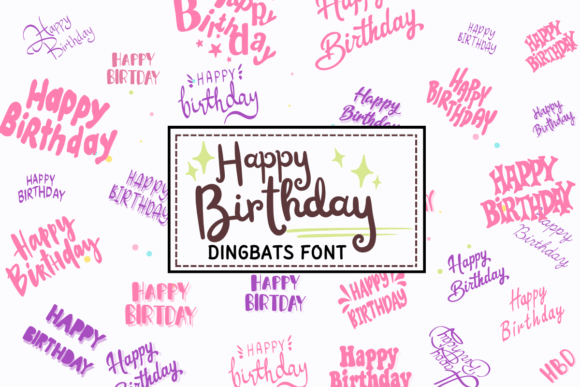
Unleash the Fun with Happy Birthday Font
Have you ever been in a creative rut, staring at a blank page or screen, wondering how to make your project truly special? We’ve all been there. But what if you had the perfect tool to bring a smile to your audience’s faces? Enter the Happy Birthday Font, a delightful dingbats font that’s sure to add a touch of whimsy to your designs.
This festive font is designed to celebrate life’s special moments, from weddings to birthday parties, and everything in between. With its playful and colorful characters, the Happy Birthday Font is the perfect addition to any creative project, from DIY crafts to logos and decorations. Whether you’re a seasoned designer or a crafty hobbyist, this font is sure to bring joy and inspiration to your work.
- Unique Characteristics: The font features custom-designed uppercase and lowercase letters, numbers, and special characters, with a playful and celebratory feel
- Color Options: The font includes color variations, allowing designers to choose from a range of colors to match their brand or design aesthetic
When I first stumbled upon the Happy Birthday Font, I was immediately drawn in by its playful and whimsical aesthetic ✨. The font’s cursive script and cheerful design make it perfect for birthday cards, party invitations, and other celebratory materials. The font’s versatility allows it to be used in a variety of contexts, from casual to formal.
The Happy Birthday Font also includes a range of special characters, such as balloons and candles, which add a fun touch to any design ✨. The font’s compatibility with various operating systems and devices makes it a convenient choice for designers.
Overall, the Happy Birthday Font is a delightful addition to any designer’s collection. Its playful design and versatility make it a great choice for a wide range of projects ✨. However, designers should be aware of the potential limitations and use the font judiciously.
The Happy Birthday Font is ideal for creating personalized birthday invitations, party decorations, and social media posts. You can also use it to add a celebratory touch to your blog posts, articles, and marketing materials.